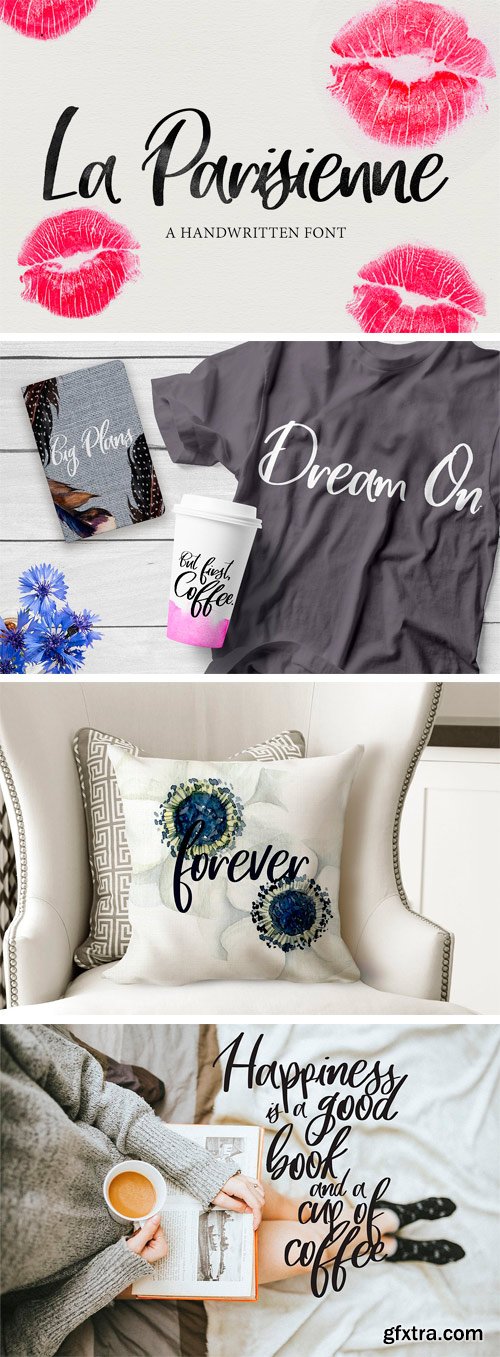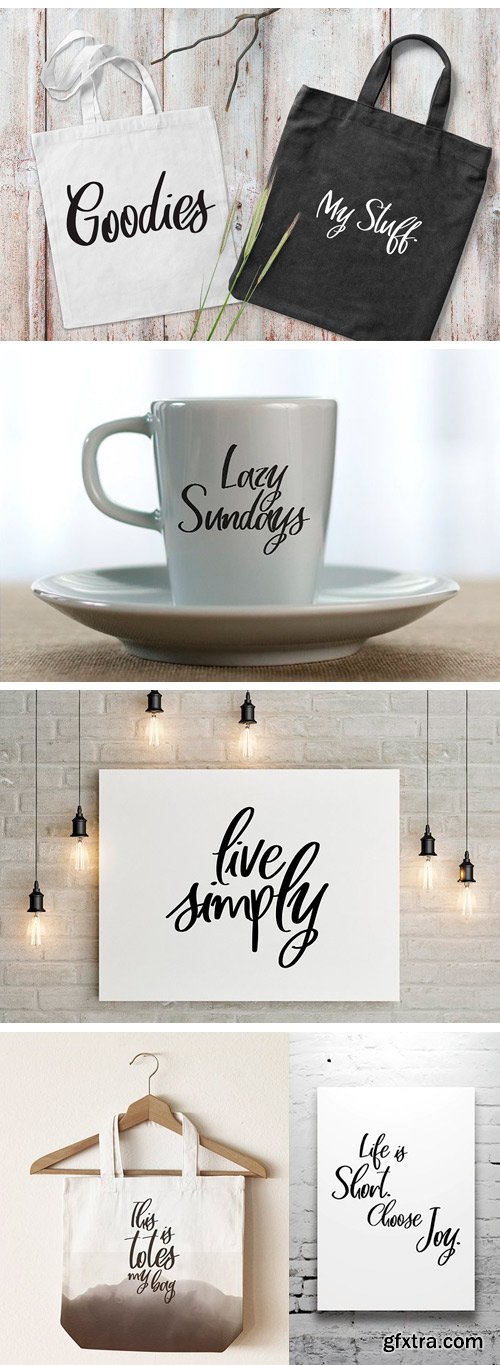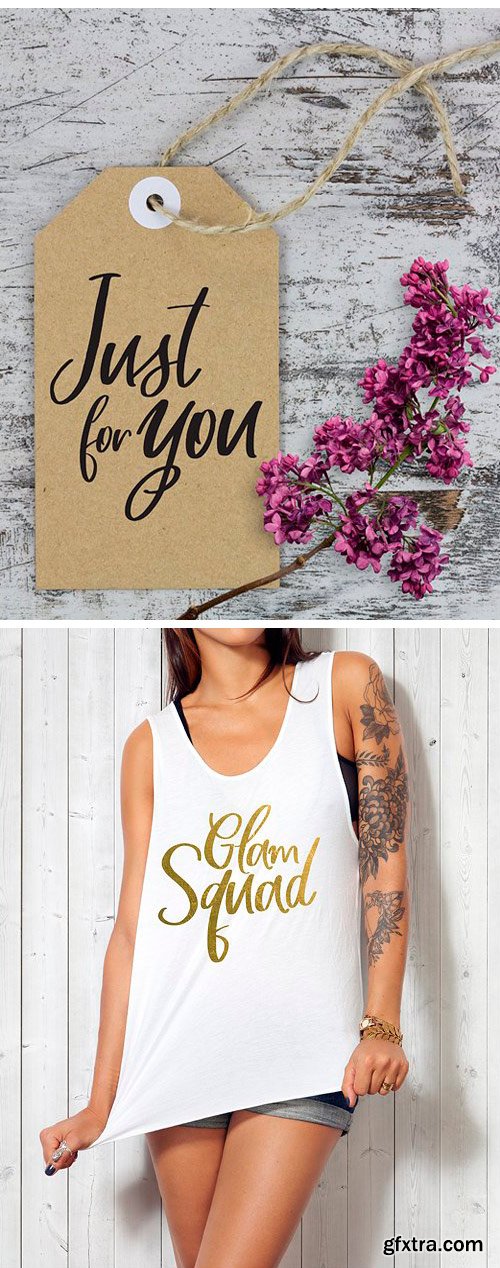
CM - La Parisienne Brush Script 2045276
Say "bonjour" to my latest hand-drawn brush script, La Parisienne! A flirty, vivacious typeface lovingly designed to be both clean and authentic-looking. It's perfect for wedding invites, your business card and personal branding, home decor, magazines, and packaging!